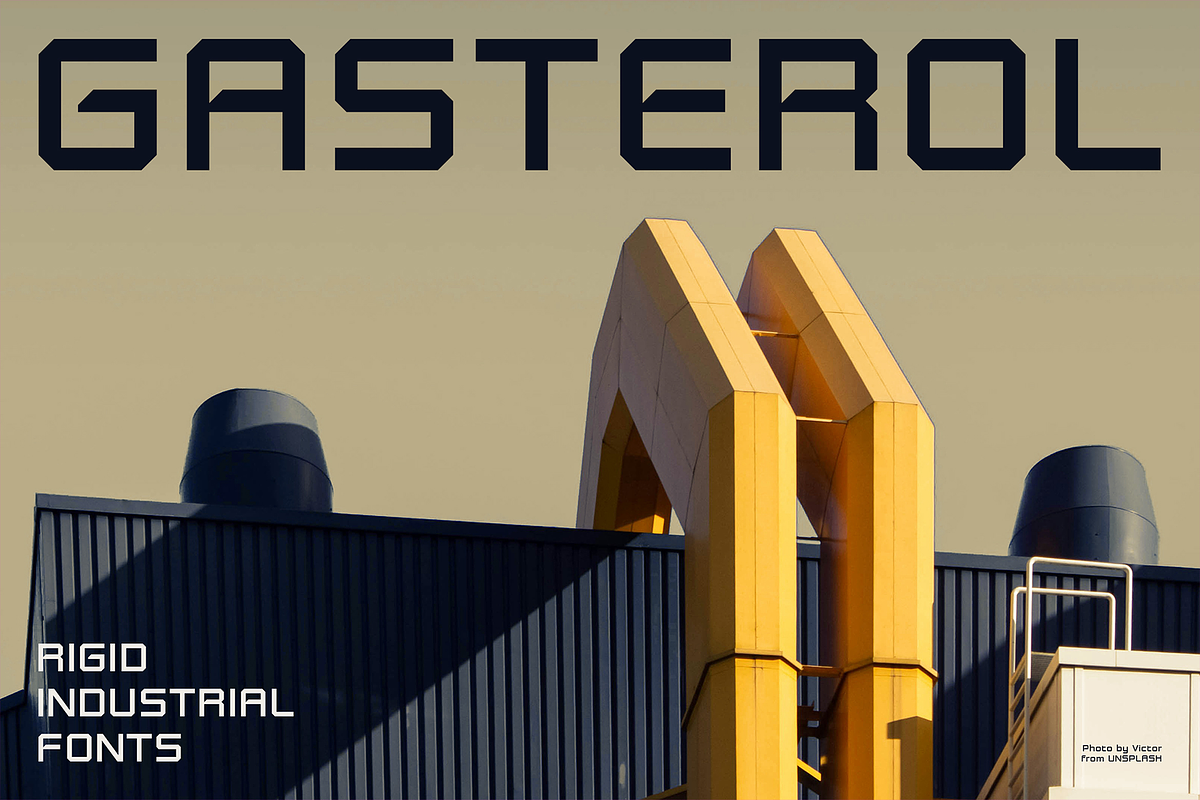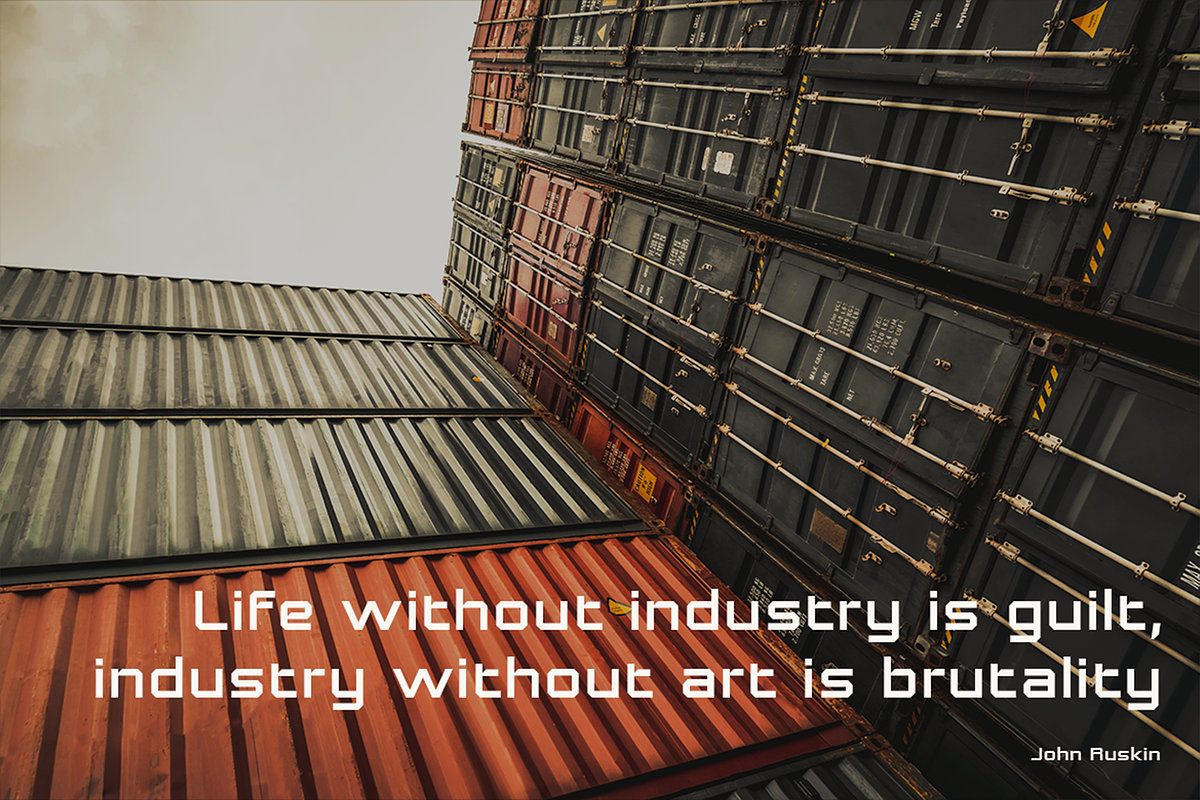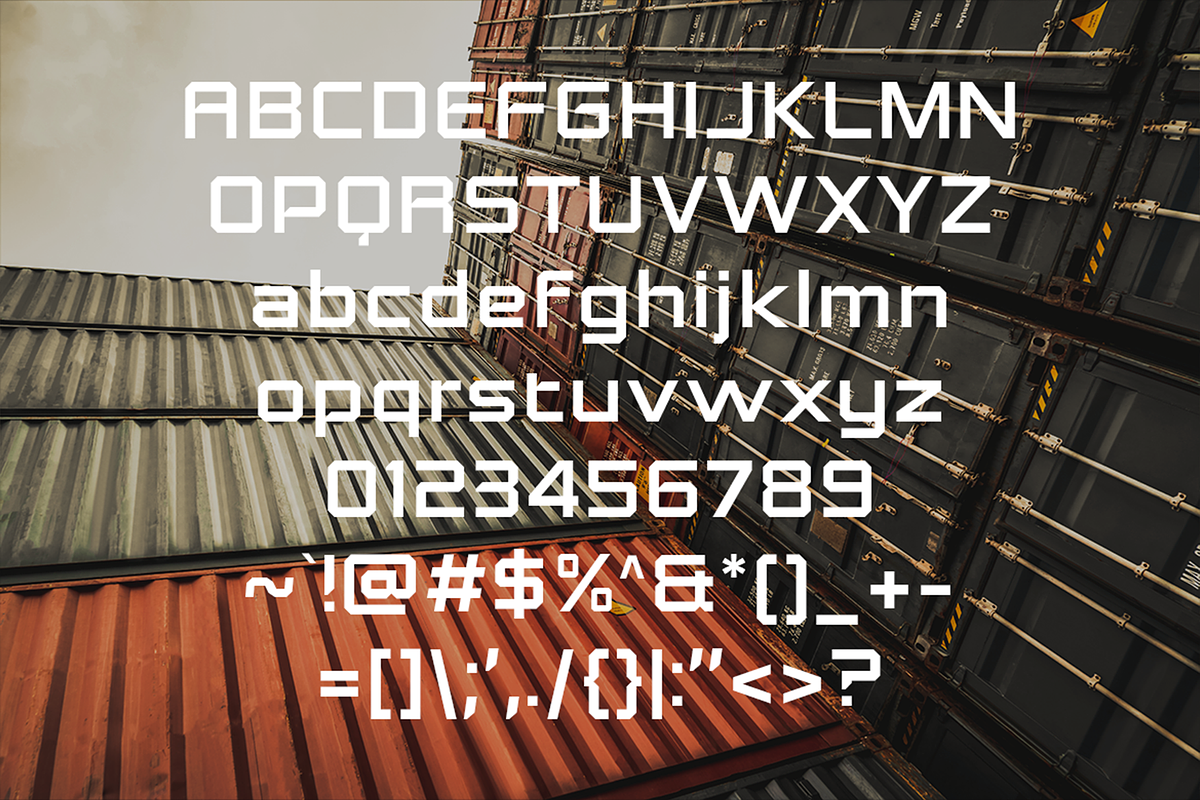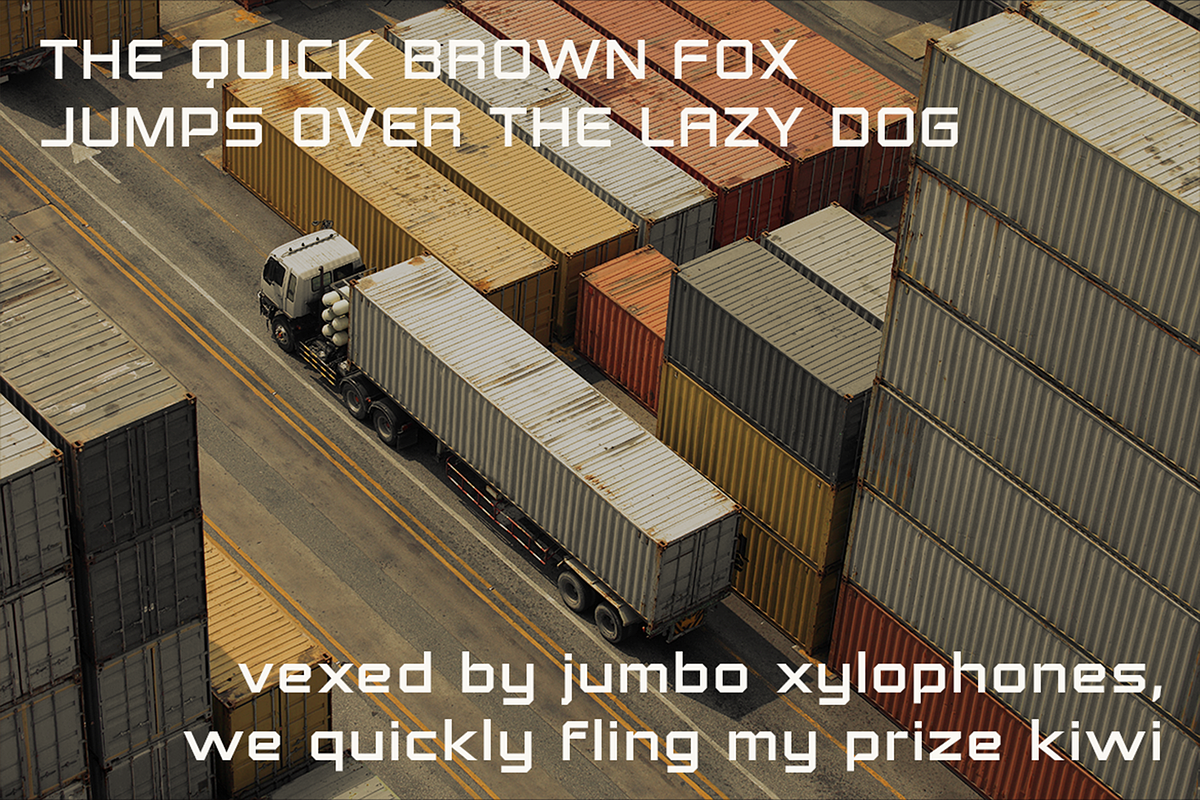
Gasterol - Industrial Display Fonts
Imagine a font as tough as the harbor itself. Weathered by the elements, yet standing strong. That's the power of Gasterol, the industrial steel container font, built to make your message unforgettable.
Inspired by the raw power of industry, Gasterol isn't for the faint of heart. It's for brands that demand attention. Brands like:
- Industrial Giants: Forge your message in steel, from towering machinery to towering reputations.
- Military Grade: Gasterol's strength echoes the unwavering spirit of those who protect. Command respect with every word.
- Automotive Powerhouses: Channel the roar of the engine with fonts that embody power and precision.
And anyone who demands a bold statement.